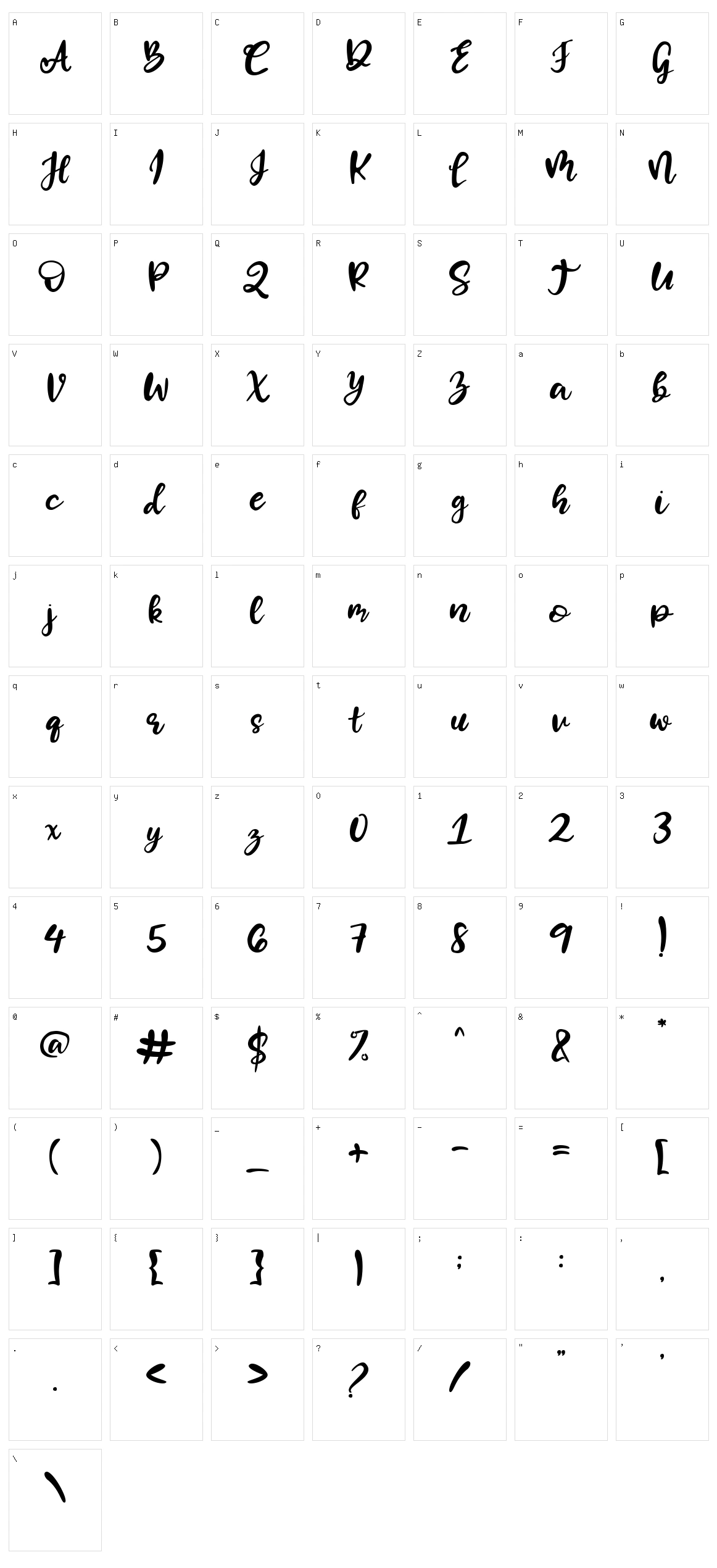
The free font Pulang Malam is carefully designed by Green Adventure Studio, showcasing a thoughtful balance of creativity and usability and falls under the Script font style. When you download the ZIP file, it contains only 72.86 KB of font files, making it lightweight and quick to download. Please review the license details below to understand permitted usage and distribution rights. If license information is not available, we recommend using this font for personal projects only or contacting the author directly for commercial usage permissions.